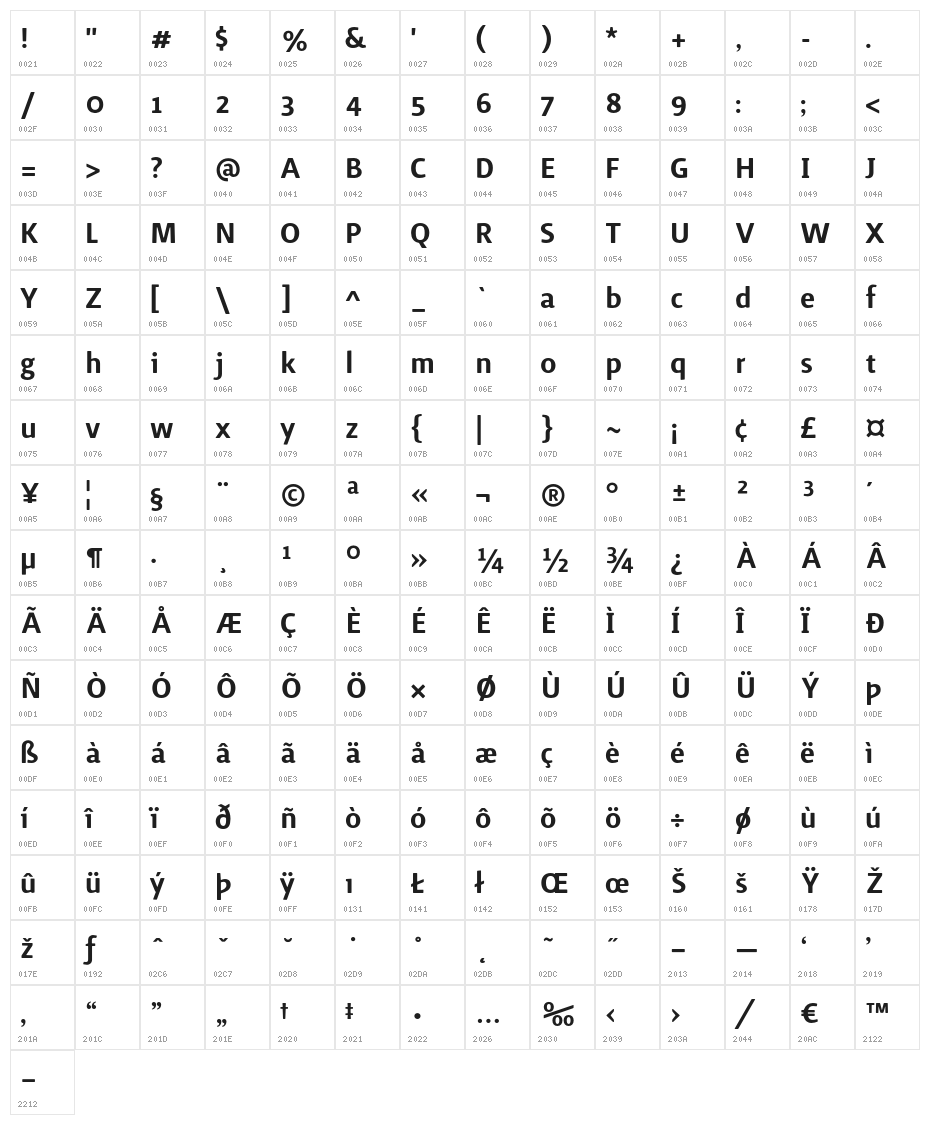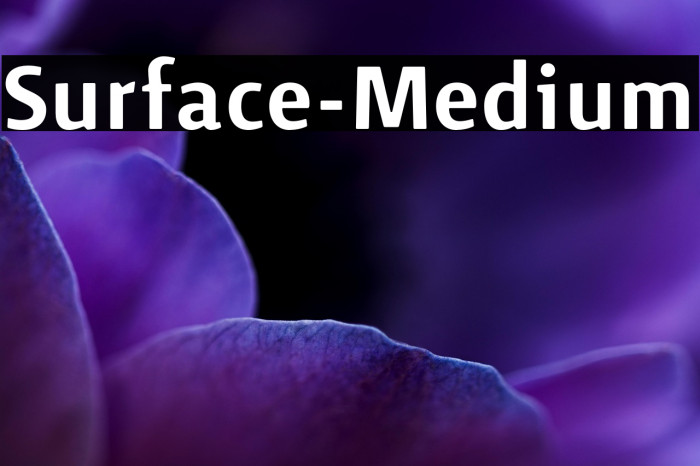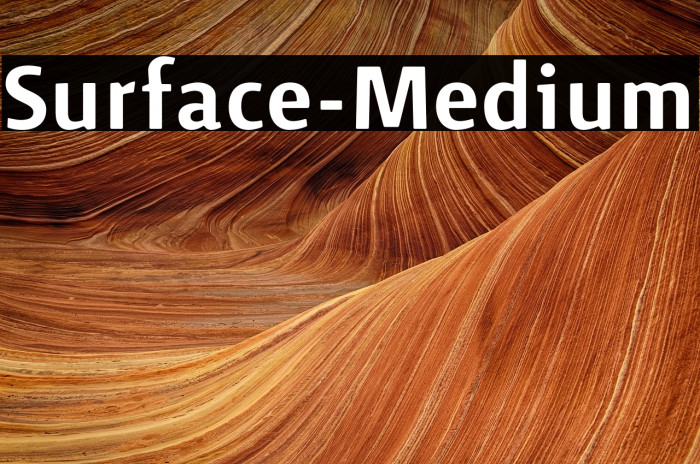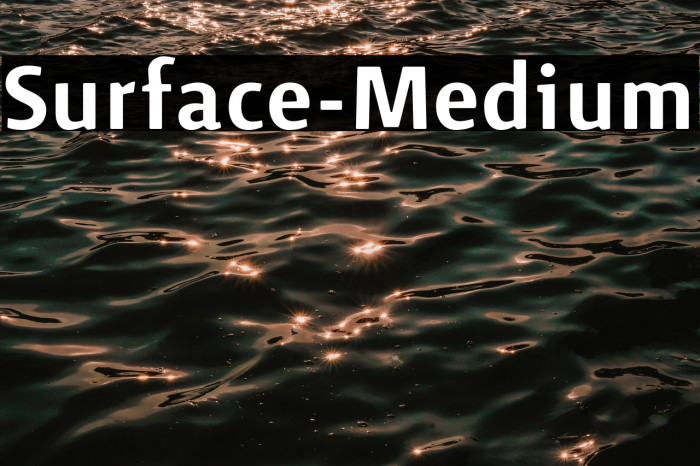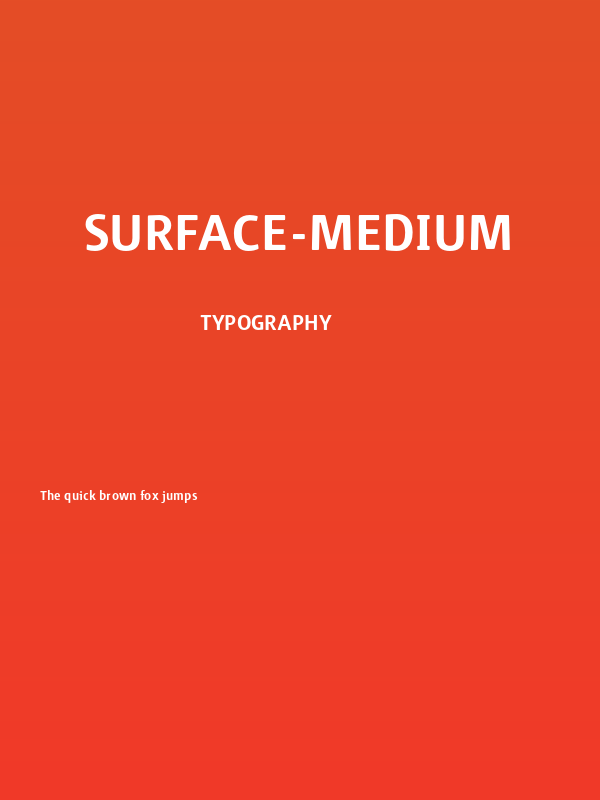
Surface-Medium Font
Surface-Medium Description
This font features a clean and modern sans-serif design with a balanced and uniform appearance. The characters are well-proportioned, offering a harmonious blend of curves and straight lines. The uppercase letters are bold and assertive, while the lowercase letters maintain a friendly and approachable feel. The numerals are clear and easily distinguishable, making them suitable for various applications. Special characters are designed with simplicity and clarity in mind, ensuring they integrate seamlessly with the rest of the typeface. Overall, this font exudes a contemporary and professional vibe, making it versatile for numerous design projects.
| Proposed Projects | Ideal for corporate branding, digital interfaces, editorial design, and advertising materials. |